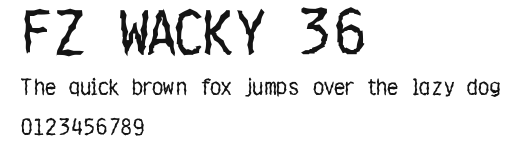
• Font Name: FZ WACKY 36
FZ WACKY 36.ttf is a modern, elegant sans-serif font designed for ultimate readability and visual harmony. Perfect for branding, headlines, web design, and print materials.